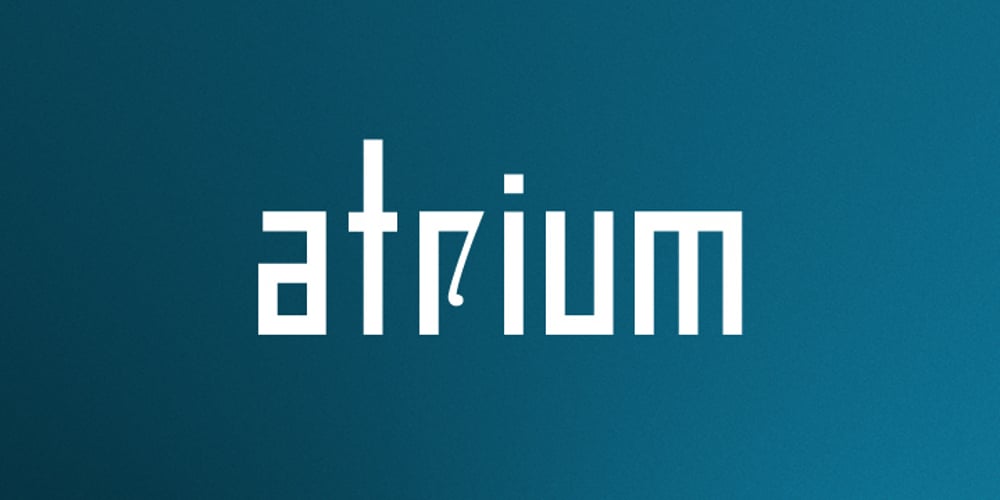
Atrium Font Family was designed by Alex Jacque and published by Alex Jacque. Atrium contains 6 styles and family package options. Atrium, designed by Alex Jacque, is a strong, linear, geometric sans-serif display typeface based off century-old pen art by W.E. Dennis. Atrium’s stubbornly geometric letterforms are set off with a few softening flourishes on a few glyphs. It’s sharp corners, straight verticals and horizontals make Atrium pack some punch when used in headlines, pull quotes, and logotypes. Atrium was released in 2012 in OpenType format and comes in three different weights: light, regular, and bold, with a regular and oblique version of each for a total of 6 styles in the family.